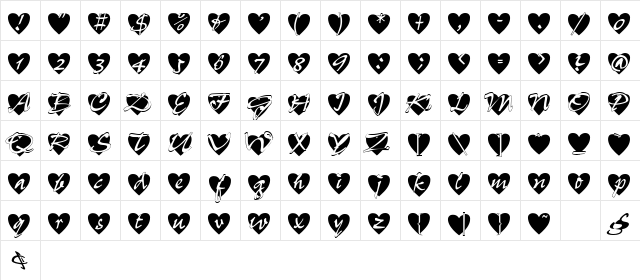
All-Hearts Normal
Design Context for All-Hearts
All-Hearts is a composed and adaptable typeface that performs quietly and consistently across a wide range of design contexts.